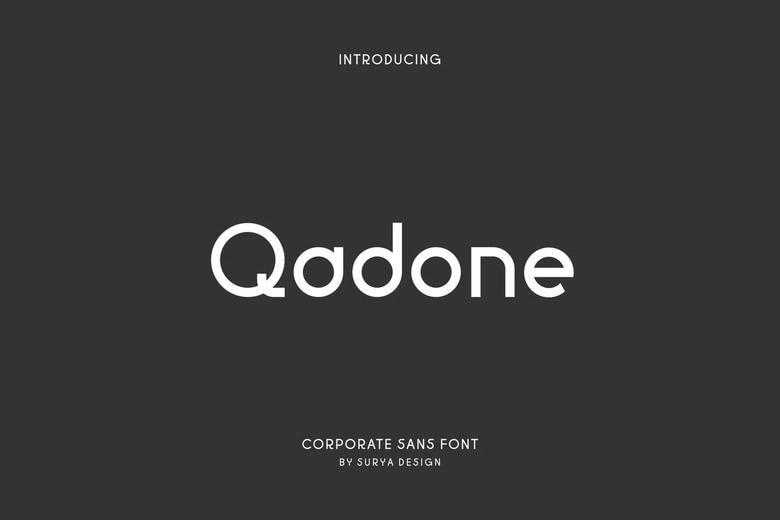
Qadone Font
Qadone Font– Modern Font is a bold and authentic sans serif font. The font is suitable for any branding project like logo, esport, and many more. outstanding in a wide range of contexts.
Qadone Sans Serif Font